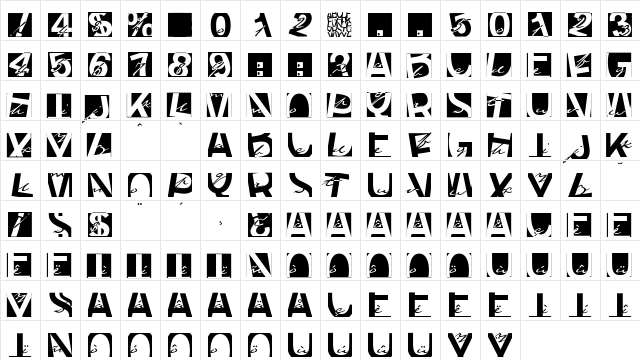
AIAlphaZetaFusione Medium
Design Context for AIAlphaZetaFusione Typeface
AIAlphaZetaFusione is a composed and adaptable typeface that performs quietly and consistently across a wide range of design contexts.